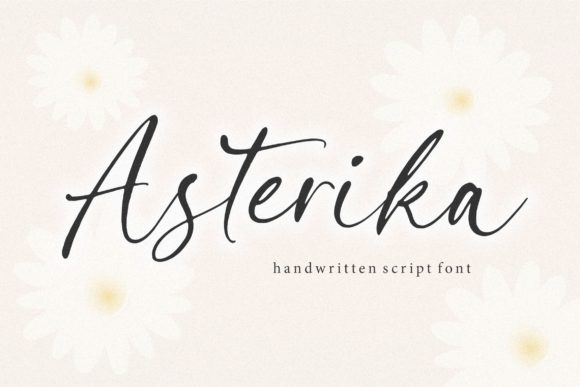
Unleash the allure of Asterika, an enthralling handwritten font that will captivate your audience with its graceful strokes and exquisite charm. Crafted with the utmost care by the renowned Balpirick, Asterika embodies the essence of elegance and sophistication, transforming your creative projects into masterpieces.
Experience the beauty of Asterika's sweeping curves and delicate flourishes, meticulously designed to evoke a sense of timeless romance and effortless style. Whether you're crafting product packaging that exudes luxury, designing captivating branding projects that leave a lasting impression, or creating magazine covers that allure and inspire, Asterika is your perfect companion.
Step into the world of social media and let Asterika elevate your presence with its undeniable charm. Engage your followers with captivating posts, stories, and visuals that showcase the power of Asterika's exquisite lines. Celebrate the joy of life's special moments with Asterika, the perfect font for wedding invitations, cards, and announcements that convey heartfelt emotions and create lasting memories.
Beyond its digital brilliance, Asterika transcends the boundaries of the screen, inviting you to explore its versatility in the realm of tangible creations. Embellish your handmade products with Asterika's enchanting touch, adding a layer of sophistication and individuality that sets them apart. Personalize your living space with wall art, home décor, and other handcrafted items adorned with Asterika's elegant script, creating an ambiance that radiates warmth and creativity.
With Asterika as your font of choice, you unlock a world of endless possibilities, where every word carries weight, every phrase evokes emotion, and every design tells a captivating story. Indulge in the beauty of Asterika and witness the transformation of your creative endeavors into works of art that resonate with your audience and leave an indelible mark on their hearts. Embrace the allure of Asterika today and embark on a journey of creative exploration and boundless inspiration.